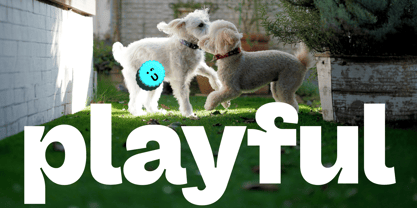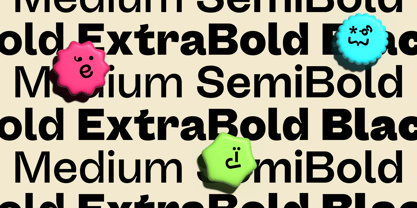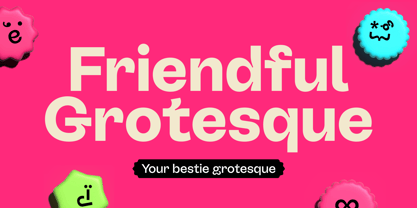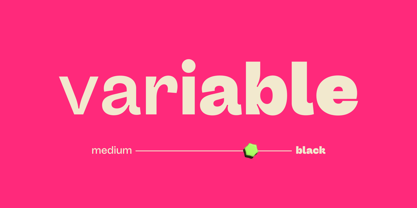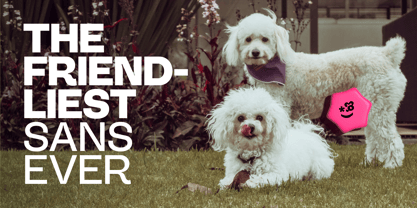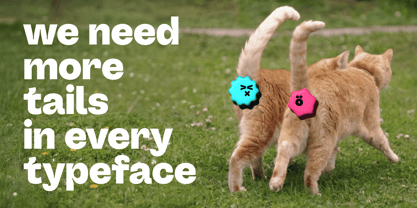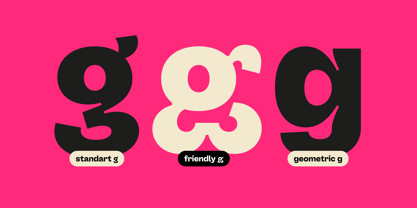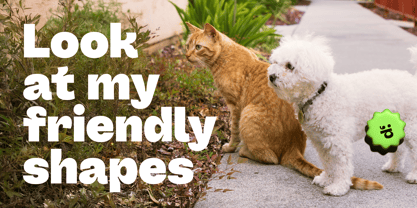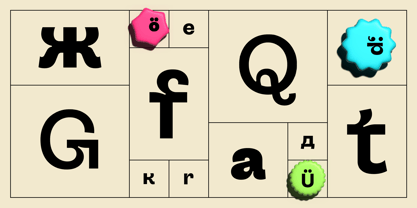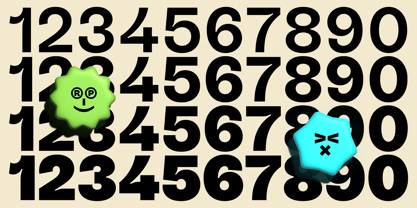
Friendful
Friendful – Affable Structure with Expressive Soul
Friendful is a warm and expressive grotesque designed to bring character and clarity into your typography. Inspired by late 19th-century European grotesques, it blends the charm of historical asymmetry and closed apertures with the clean proportions of modern geometric sans-serifs.
What makes Friendful truly stand out are its deep ink traps, which not only enhance legibility but also inject a sense of rhythm and movement into the letterforms. These sculptural cuts give the typeface a soft, friendly personality, perfectly suited for approachable branding and engaging editorial design.
Hand-drawn influences lie at the heart of Friendful’s design, subtly shaping the letterforms and coming to life even more vividly through its alternate characters. This balance between structure and playfulness gives designers tools to infuse warmth without losing order.
Friendful comes in five weights, supports Western European Latin and Ukrainian Cyrillic, and is ready to become your go-to choice for projects that demand both soul and structure.